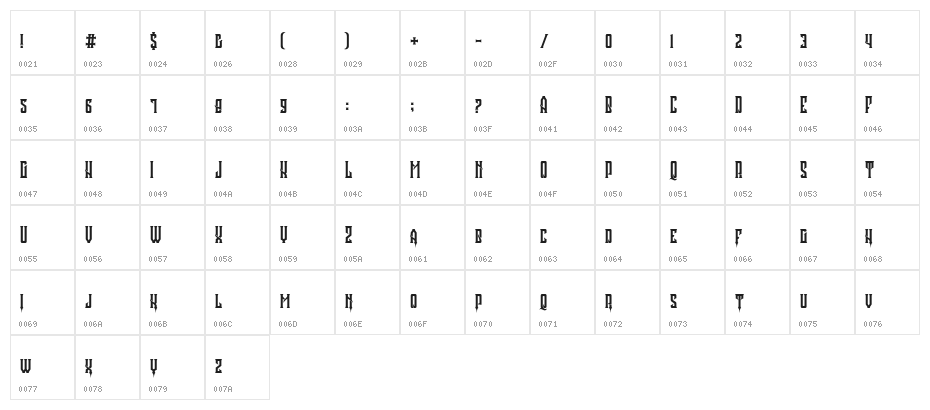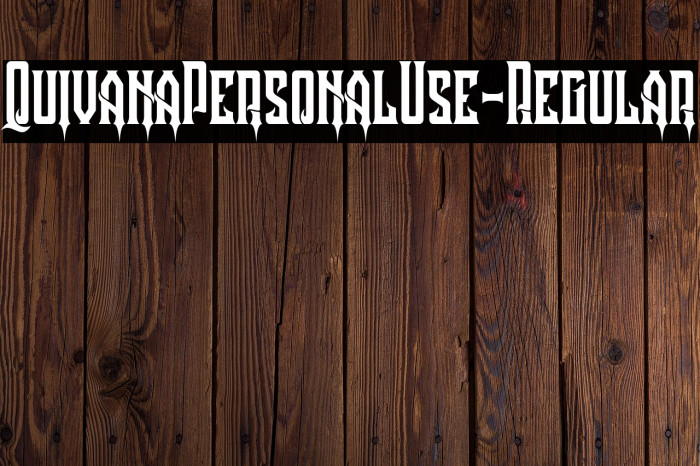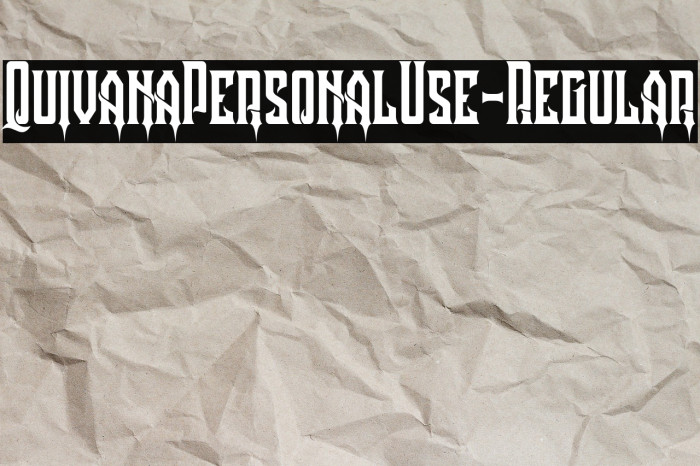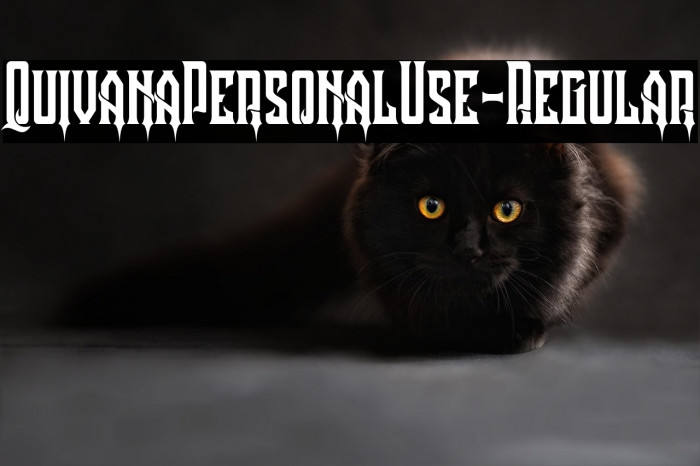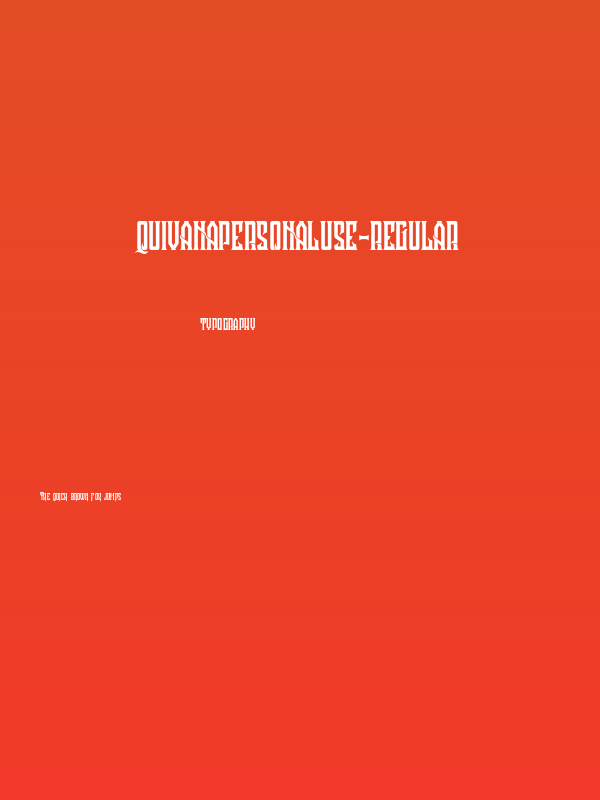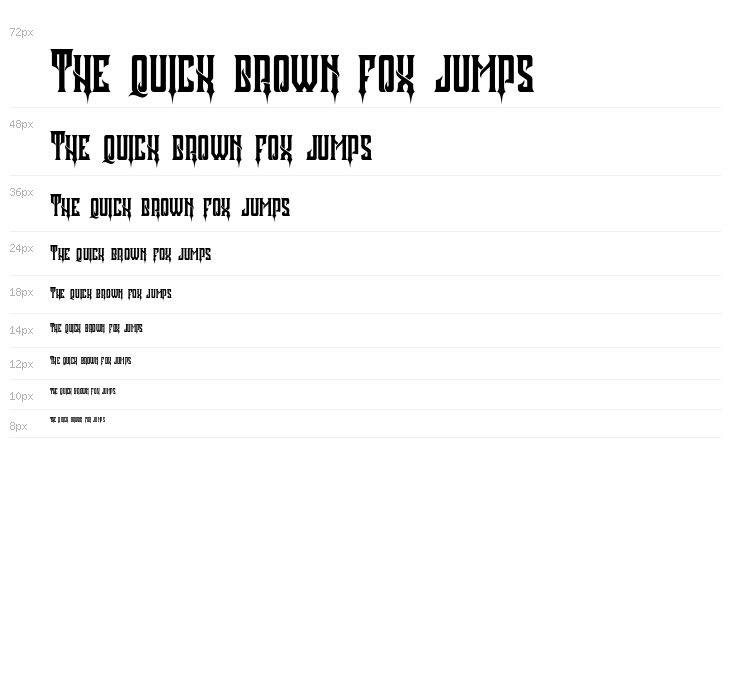
QuivanaPersonalUse-Regular Font
QuivanaPersonalUse-Regular Description
This font features a bold and striking design with sharp, angular edges and a gothic-inspired aesthetic. The uppercase letters are particularly prominent, with elongated vertical lines and pointed serifs that give a dramatic flair. The lowercase letters maintain the same sharpness, creating a cohesive look throughout. Numbers and special characters are equally stylized, ensuring consistency across all text elements. The overall appearance is both modern and edgy, making it ideal for projects that require a strong visual impact.
| Overall Style | Gothic, Modern |
| Proposed Projects | Ideal for album covers, posters, branding for edgy or alternative products, and any design requiring a dramatic, gothic touch. |